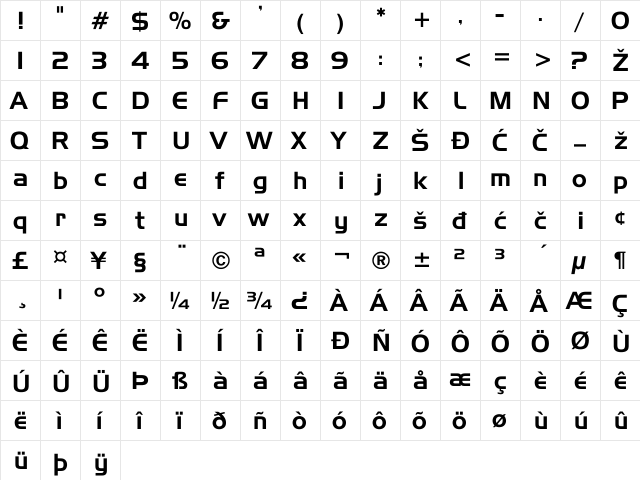
Hannover Bold
Design Context for Hannover Typeface
Hannover takes a measured approach to typography — its balanced proportions and neutral character make it a reliable workhorse for both digital and print work. The heavy weight commands attention and anchors typographic hierarchies.